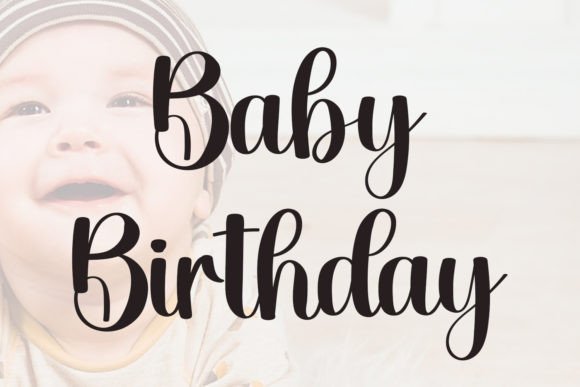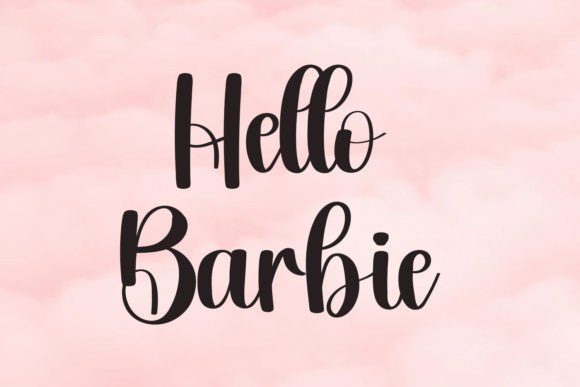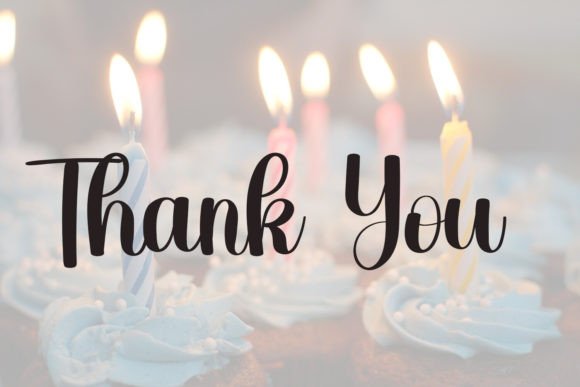
Designing a Dream Celebration: Introducing the Barbie Birthday Font
Have you ever found yourself rummaging through your font collection, searching for the perfect match to make your design truly sparkle? I’m sure we all have been there – scrolling through endless options, hoping to stumble upon that one special font that makes our creation stand out from the crowd.
Well, I’m thrilled to introduce you to the Barbie Birthday Font – a fresh and beautiful font that’s sure to make your designs shine. This versatile font is perfect for a wide range of projects, from YouTube banners and wedding invitations to ID cards and flyers.
As a designer, you know how valuable it is to have a reliable go-to font that can elevate your work and make it truly special. The Barbie Birthday Font is just that – a timeless, elegant choice that’s sure to bring a touch of magic to your designs.
Barbie Birthday Font Key Features
- Unique Characteristics: The Barbie Birthday Font features colorful and playful lettering, with a mix of bold and cursive styles that evoke the spirit of a child’s birthday celebration.
- Font Style: This font has a mix of uppercase and lowercase letters, with a focus on fun and whimsical letterforms that are perfect for creating eye-catching birthday invitations and decorations.
Designer Review: Barbie Birthday Font
I recently had the chance to work with the Barbie Birthday Font, and I have to say it’s a mixed bag. Here are my honest thoughts:
- Cute and playful aesthetic – The font is perfect for birthday invitations, party decorations, and other celebratory materials.
- Good for targeting a young audience – The font’s design is likely to appeal to children and teenagers.
- Easy to read – The font is clear and legible, making it suitable for various applications.
- Limited versatility – The font is quite specific in its design, making it less suitable for general use or formal documents.
- No bold or italic variations – The font’s design is quite fixed, which can be a limitation for certain applications.
- Not suitable for body text – The font is best used for titles, headings, or short paragraphs.
While the Barbie Birthday Font is a fun and playful choice, it’s not a font I’d use for everyday design projects. However, it’s perfect for birthday-themed materials or targeting a young audience. If you’re looking for a font with a bit more versatility, you might want to consider other options.
The Barbie Birthday Font is perfect for creating playful and festive designs for children’s parties, birthday invitations, and more. Some common use cases include:
- Birthday party invitations and decorations.
- Children’s party banners and signs.
- Gift tags and gift boxes.